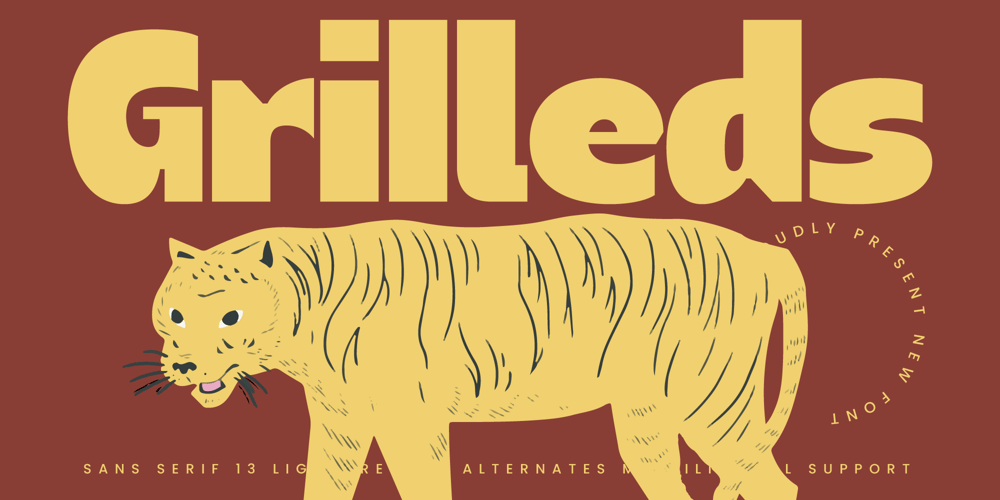
Grilleds Font Family was designed by Heru Utama Putra and published by Timelesstype Studio. Grilleds contains 2 styles and family package options. Grilleds – Sans Serif , from Timelesstype , Suitable for any projects such as: logos, branding projects, homeware designs, product packaging, mugs, quotes, posters, shopping bags, t-shirts, book covers, name card, invitation cards, greeting cards, label, photography, watermark, special events, and all your other luxury and beautiful projects that need a Luxury Serif taste.